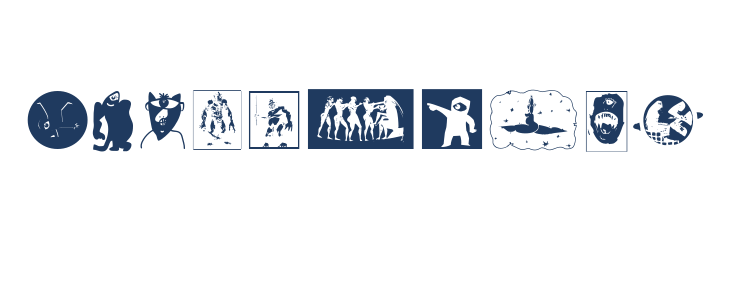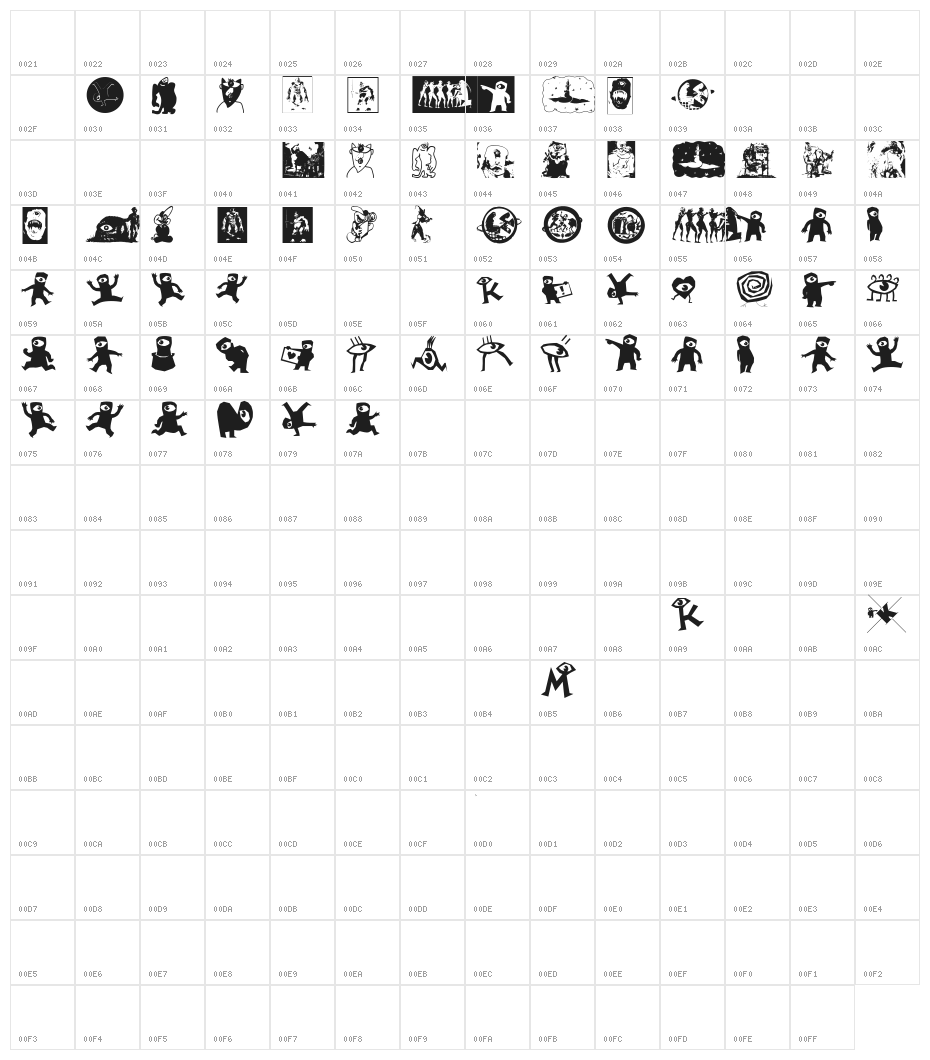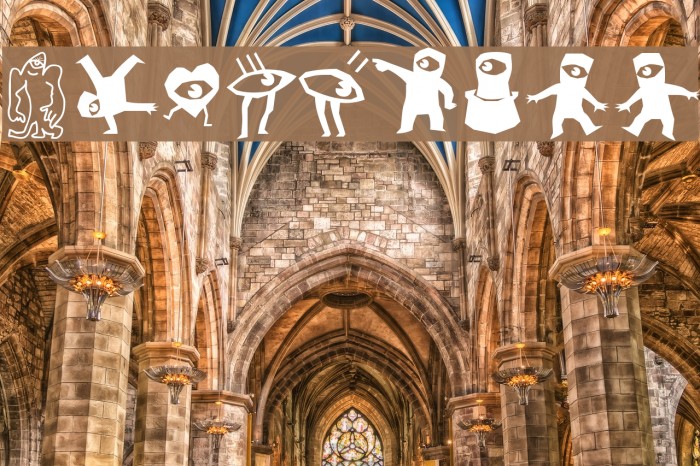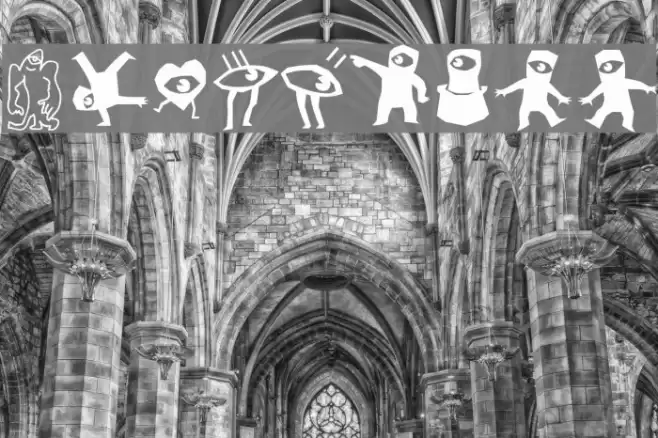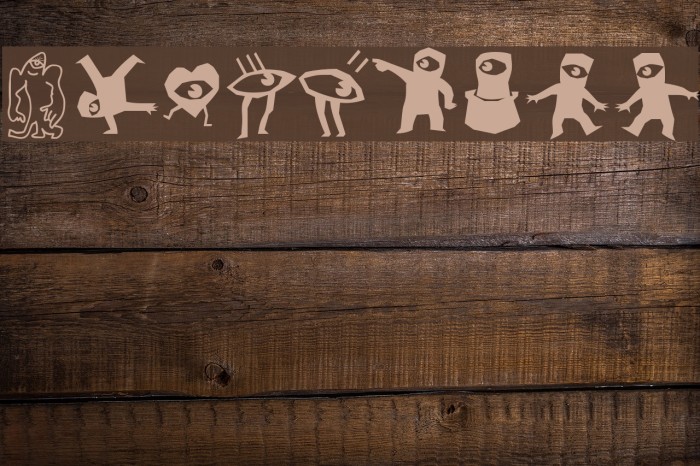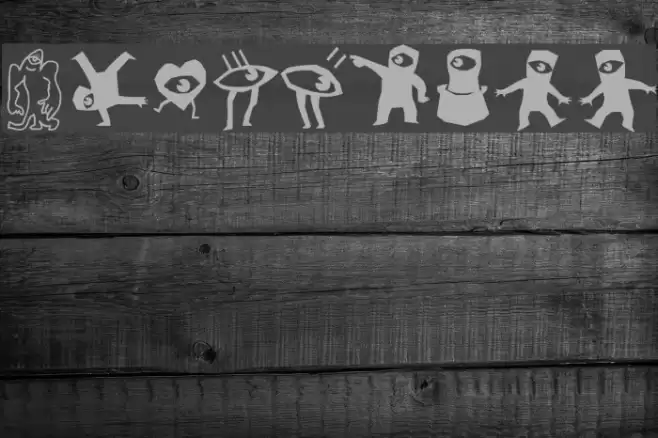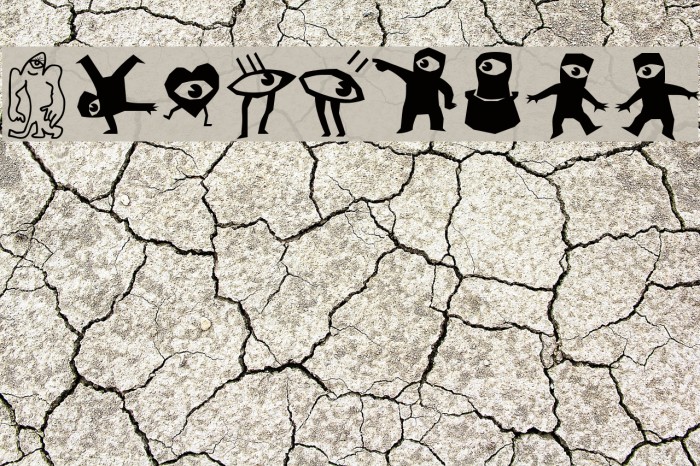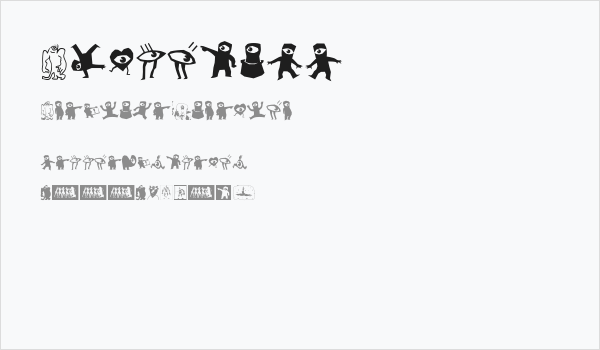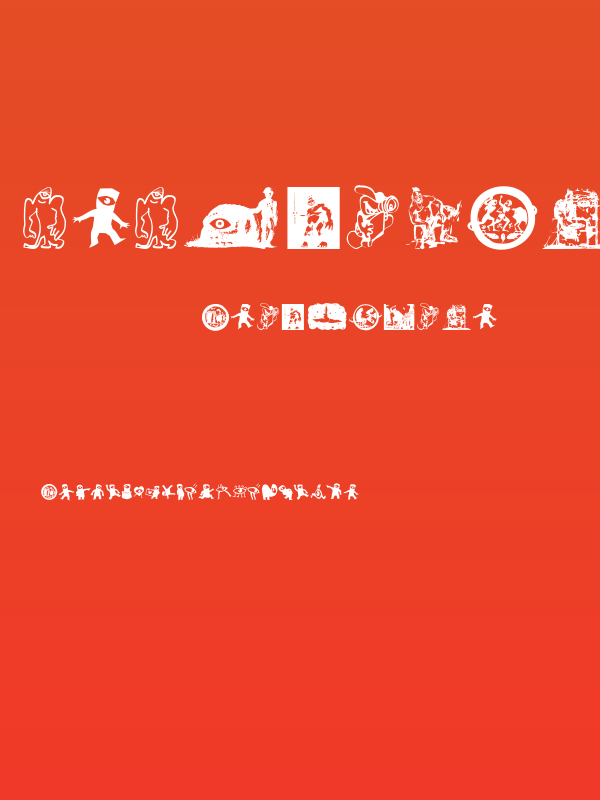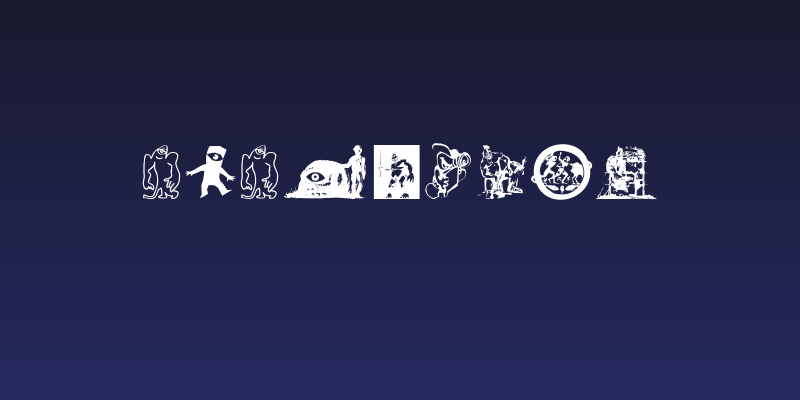
Cyclopish Font
A highly decorative and playful dingbat font featuring hand-drawn, cartoonish cyclops characters, monsters, and whimsical scenes. Each glyph is a unique illustration rather than a traditional letterform, with bold, irregular strokes and a strong sense of movement and personality.
| Overall Style | Playful, Whimsical, Decorative |
| Use Case | Illustrative elements, Themed graphics, Decorative accents |
| Proposed Projects | ChildrenΓ’β¬β’s books, party invitations, comic strips, posters, creative branding, Halloween materials. |